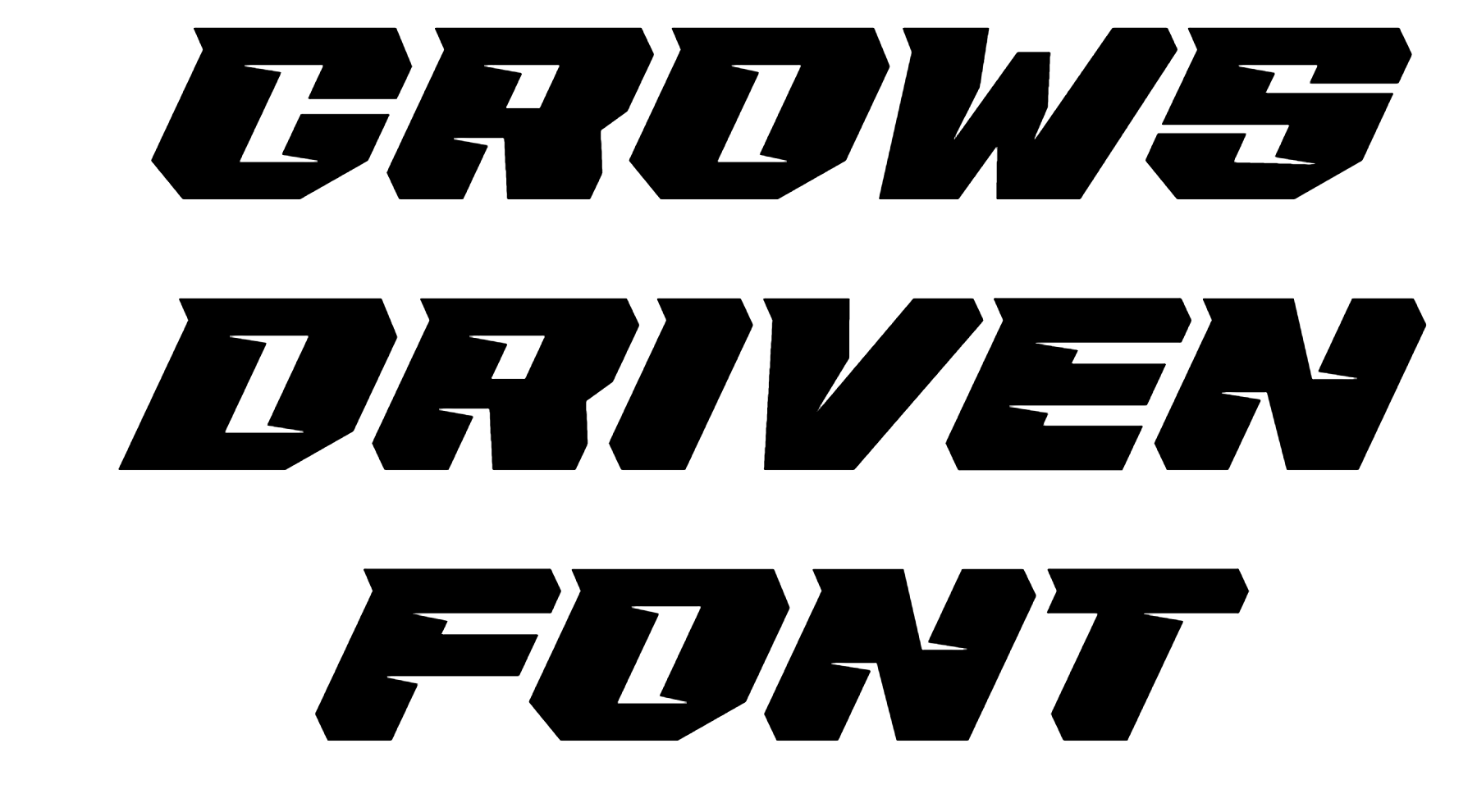
Crows Driven
Crows Driven is a fancy font created by Akasapix Studio (2024). Bold and full of character, it's built to stand out rather than blend in. You can download it for free and test it with your own words in the preview above.
With complete upper and lowercase letters and all ten digits, Crows Driven is ready for real wording, not just a single headline. Common punctuation such as &, !, ? and @ is included as well. It also has the accented letters you need for Spanish, French, German, Portuguese and Italian.
Crows Driven is a natural fit for posters, logos and eye-catching headlines. Use it for one standout word or headline and let simpler fonts handle the rest.
Who designed Crows Driven font?
Crows Driven was designed by Akasapix Studio. The copyright line inside the font is dated 2024.
Does Crows Driven support accented letters?
Yes. Crows Driven includes the accented letters needed for Spanish, French, German, Portuguese and Italian, so it works for more than just English.